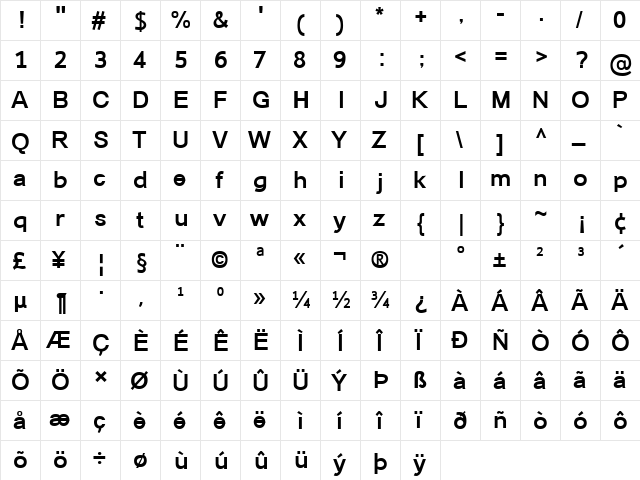
Catriel Bold
Design Context for Catriel Typeface
Catriel takes a measured approach to typography — its balanced proportions and neutral character make it a reliable workhorse for both digital and print work. The heavy weight commands attention and anchors typographic hierarchies.